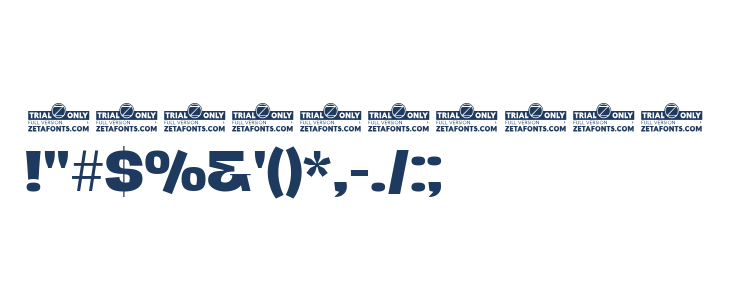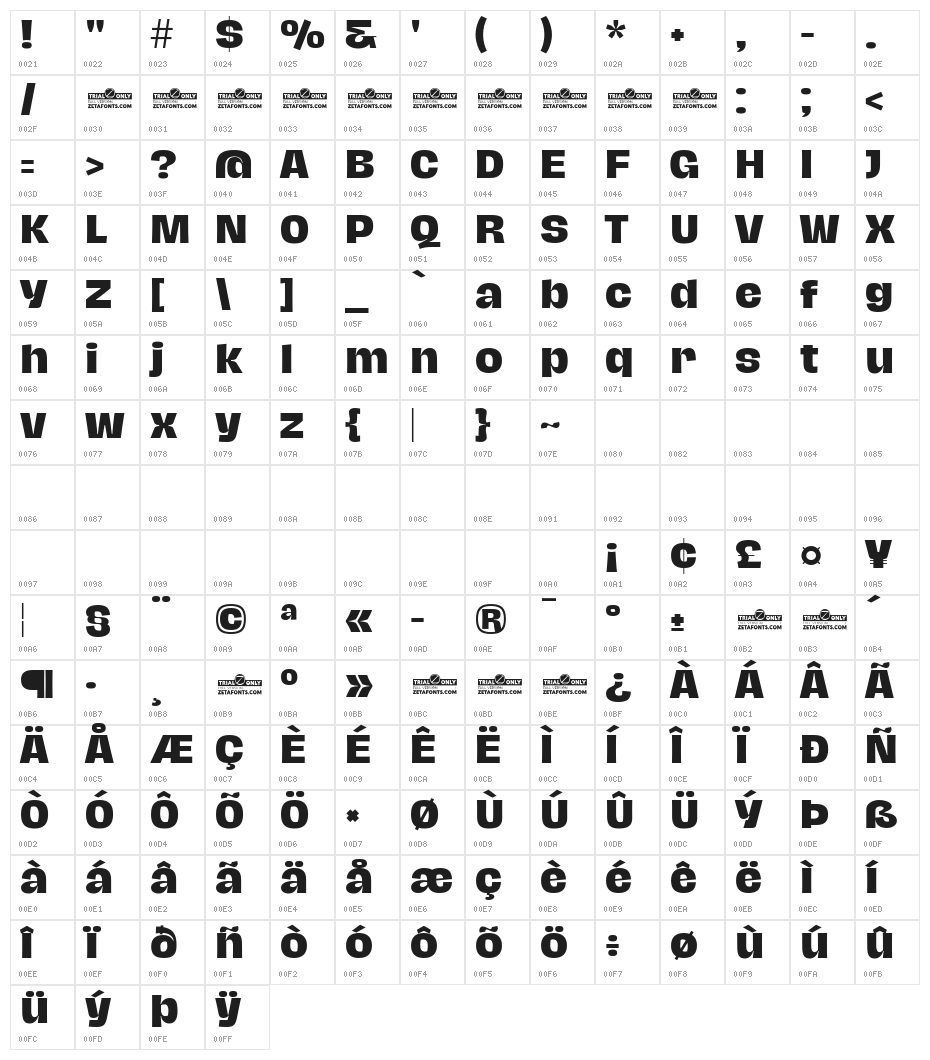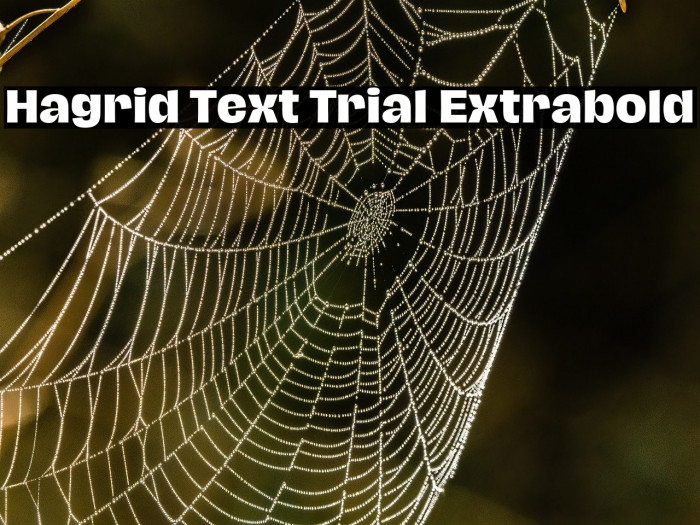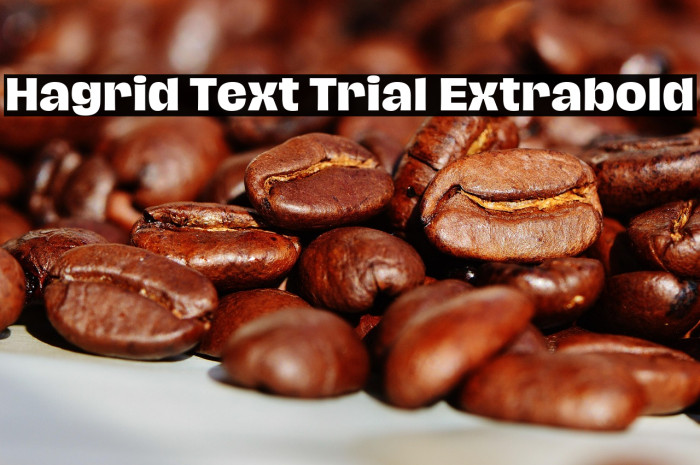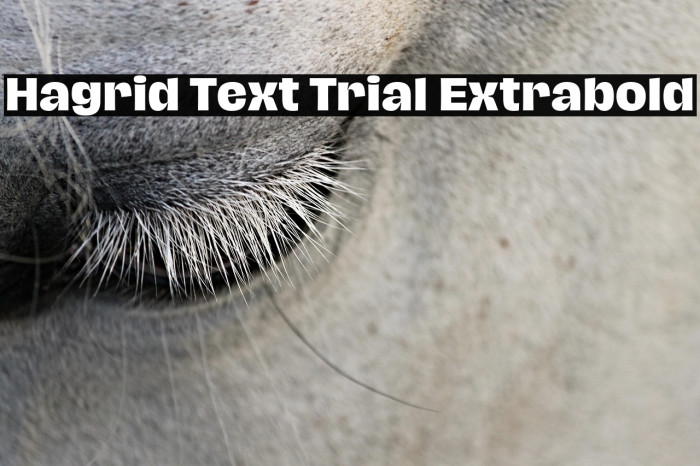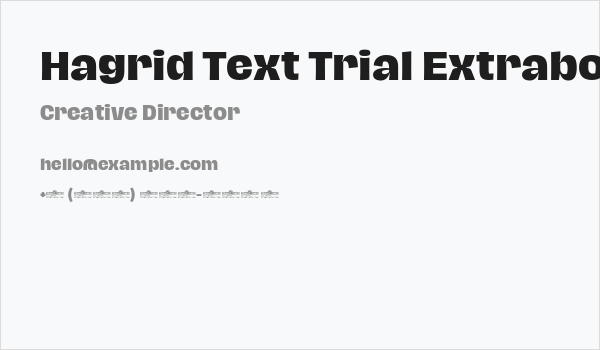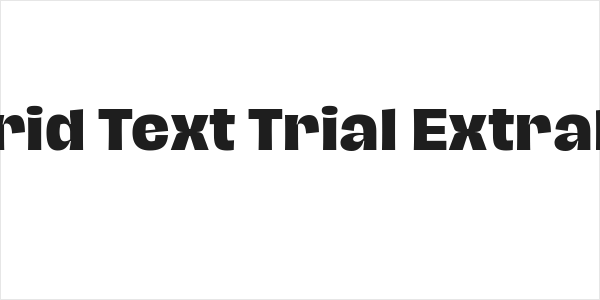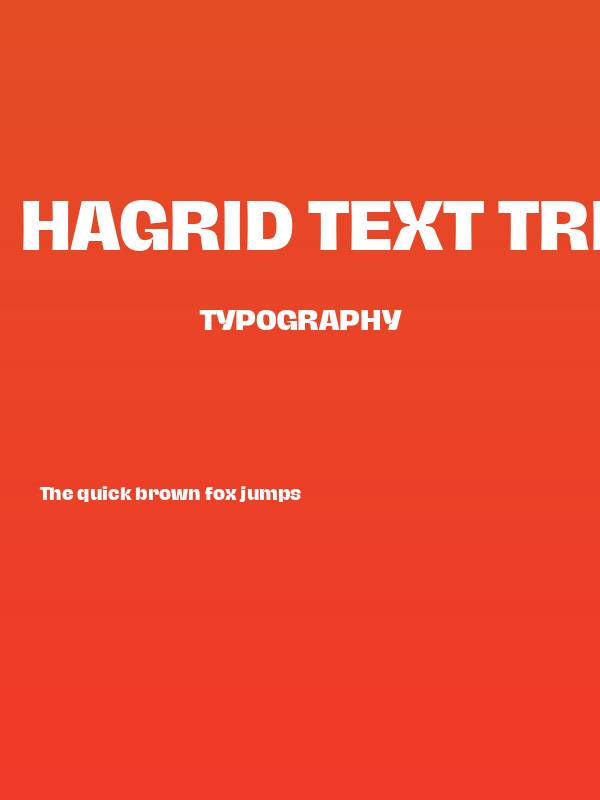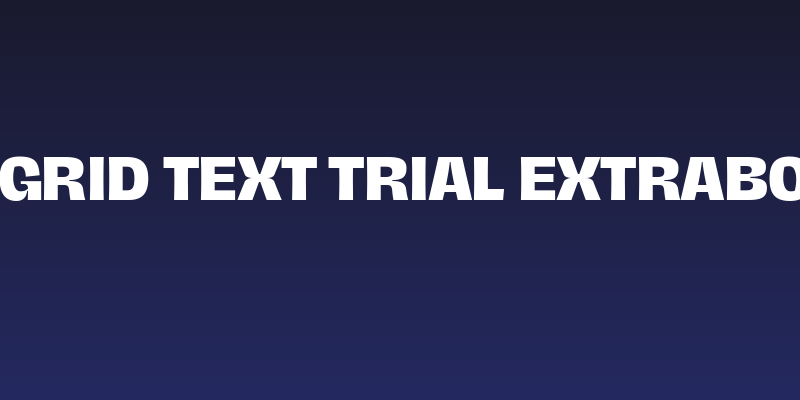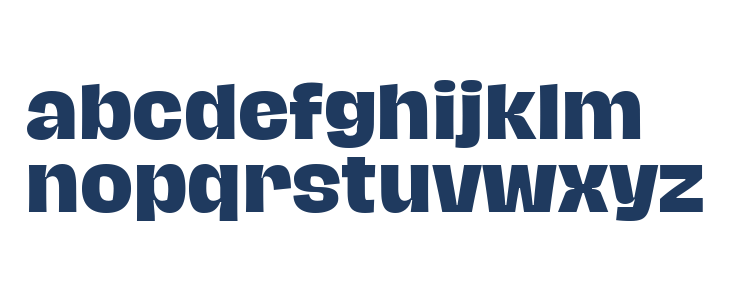
Hagrid Text Trial Extrabold Font
Hagrid Text Trial Extrabold Description
This font features a bold and robust design, characterized by thick, uniform strokes and a strong presence. The uppercase and lowercase letters maintain a consistent weight, providing a cohesive look across all characters. The font exhibits a modern style with a slight geometric influence, making it suitable for impactful headlines and attention-grabbing text. The special characters are designed with the same boldness, ensuring they stand out equally. The overall appearance is clean and powerful, ideal for making a statement.